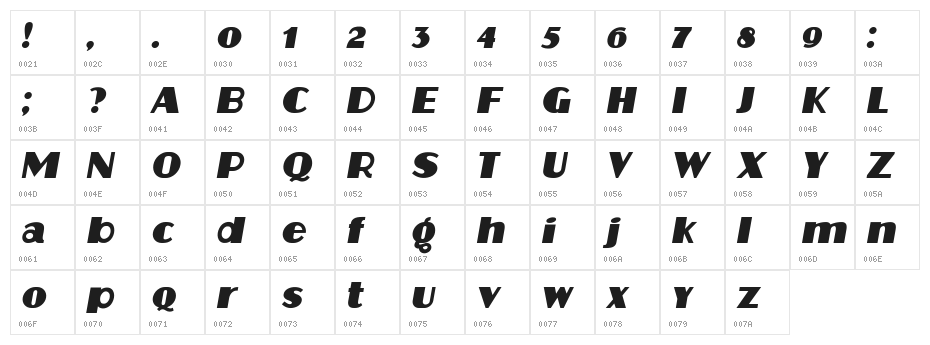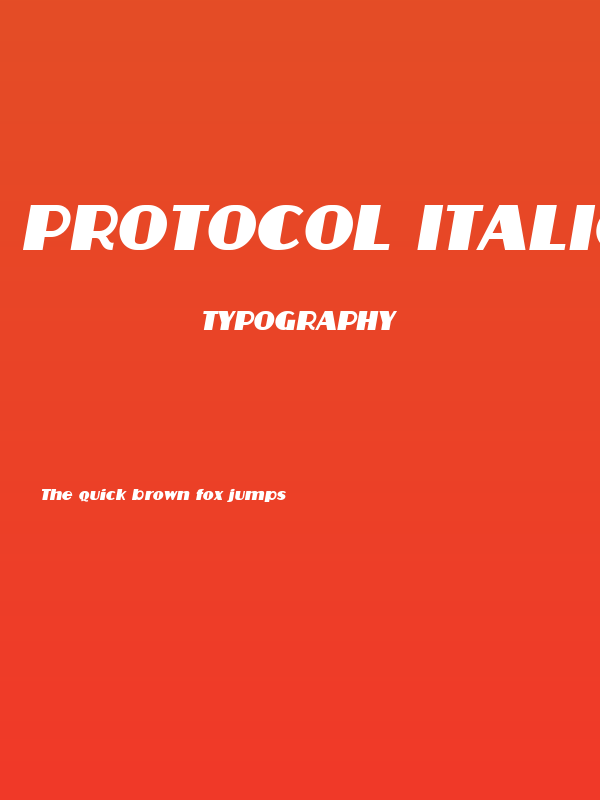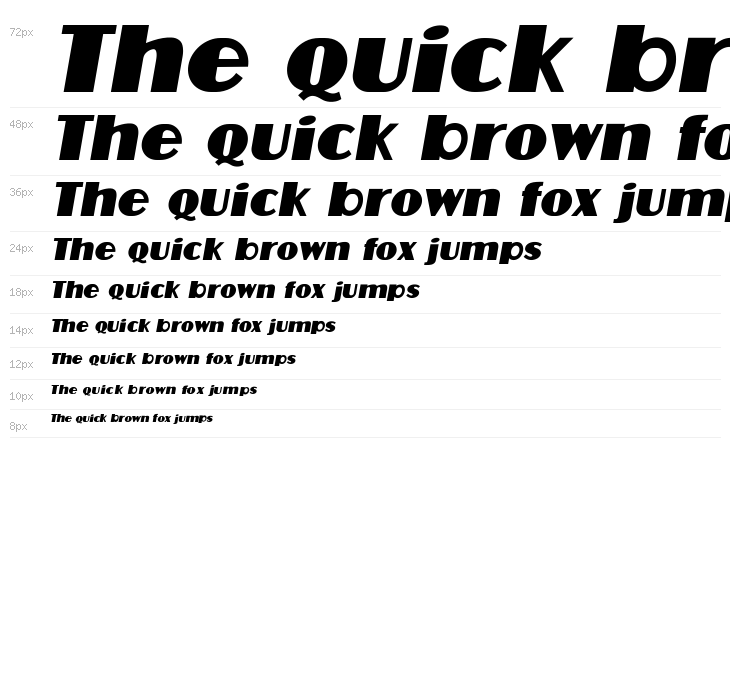
Protocol Italic Font
Protocol Italic Description
This font exhibits a bold and dynamic style with a pronounced italic slant, giving it a sense of movement and urgency. The characters are robust and thick, providing a strong visual impact. The uppercase letters are particularly striking, with a consistent weight that enhances readability. The lowercase letters maintain the same boldness, ensuring uniformity across the text. The numerals are equally bold, making them stand out effectively. Special characters are designed with the same attention to detail, ensuring they integrate seamlessly with the rest of the font. Overall, the font's boldness and italic style make it suitable for attention-grabbing headlines and impactful designs.
| Proposed Projects | Ideal for headlines, posters, branding materials, and any design requiring a bold statement. |